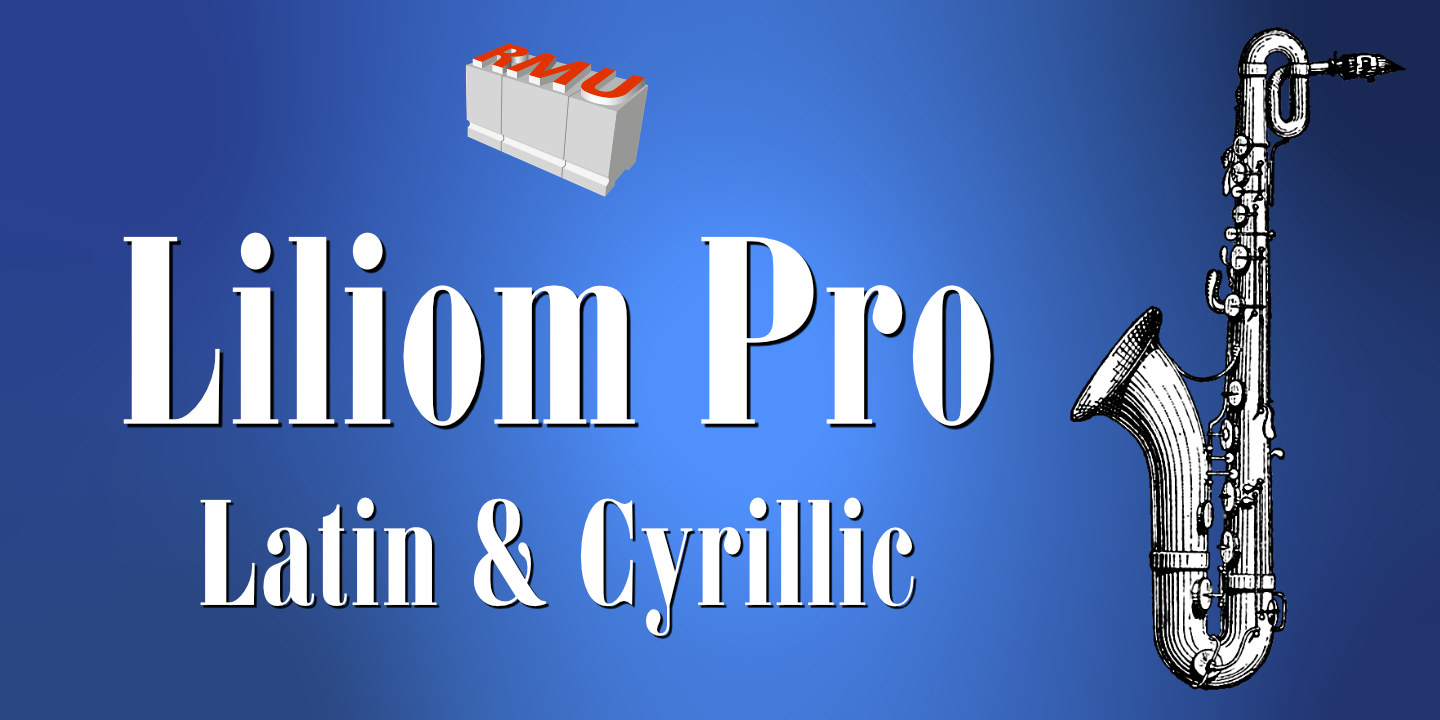
Liliom Pro Font Free Download is a refined and elegant serif typeface that combines classic typography traditions with a modern sensibility. Its graceful curves, delicate serifs, and balanced letterforms make it ideal for luxury branding, editorial design, wedding invitations, book covers, and sophisticated marketing materials.
The font’s high readability and carefully crafted details ensure it performs beautifully across both digital and print formats. Liliom Pro’s timeless aesthetic and versatile structure allow it to enhance the elegance and professionalism of any creative project, whether used in large headlines or detailed body text.
Liliom Pro is a perfect addition to any designer’s collection, offering timeless beauty and versatility for a wide range of high-end creative projects.